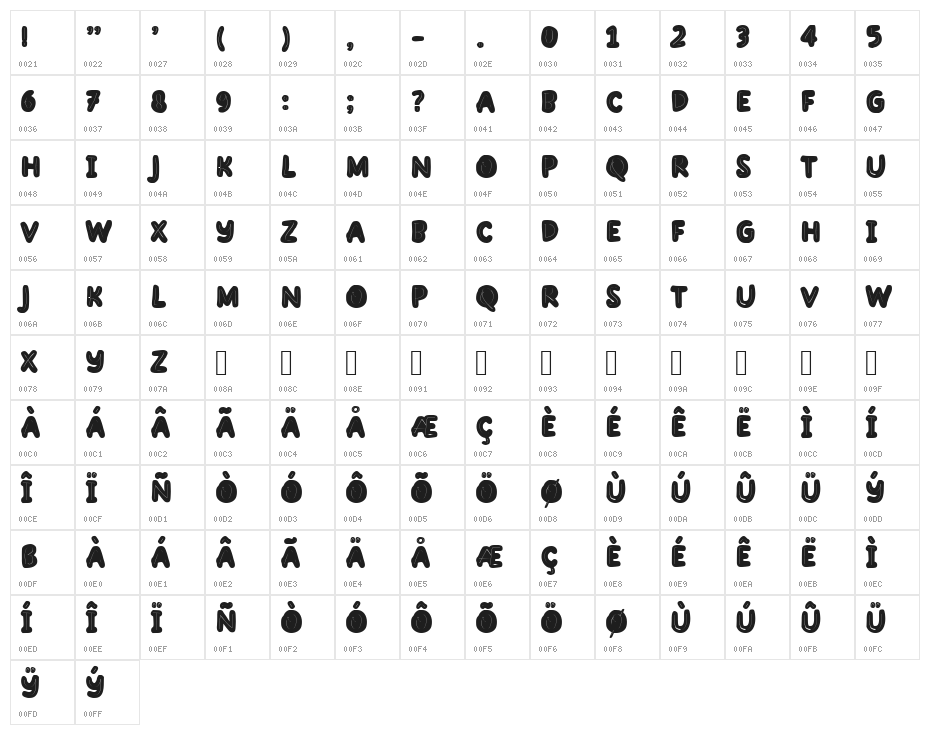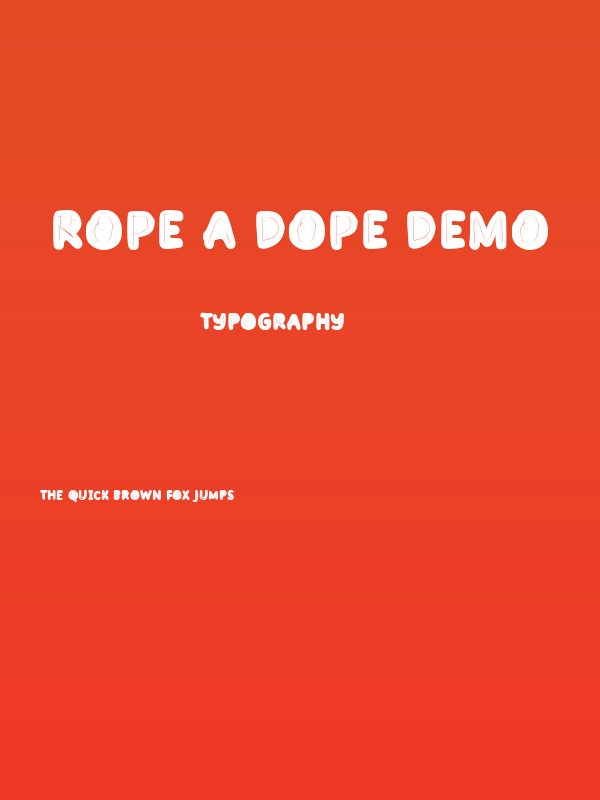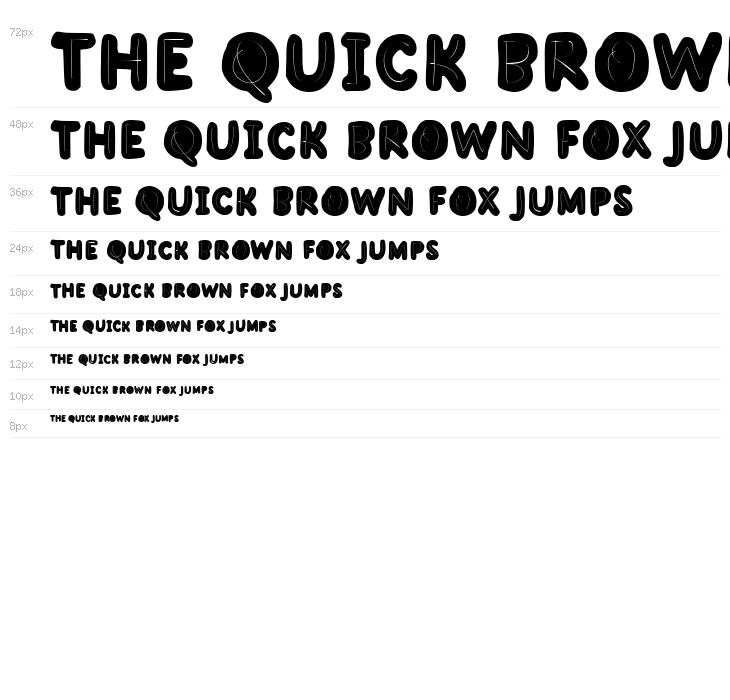
Rope A Dope Demo Font
Rope A Dope Demo Description
This playful and bold font features a unique, rope-like design that gives each character a sense of movement and texture. The letters are thick and rounded, with a consistent stroke width that creates a cohesive and visually striking appearance. The font's whimsical style is accentuated by its decorative elements, making it ideal for projects that require a fun and engaging aesthetic. The numbers and special characters maintain the same playful quality, ensuring a uniform look across all text elements. This font is perfect for capturing attention and adding a touch of creativity to any design.
| Overall Style | Playful, Decorative |
| Proposed Projects | Ideal for children's books, playful branding, event posters, and creative packaging. |